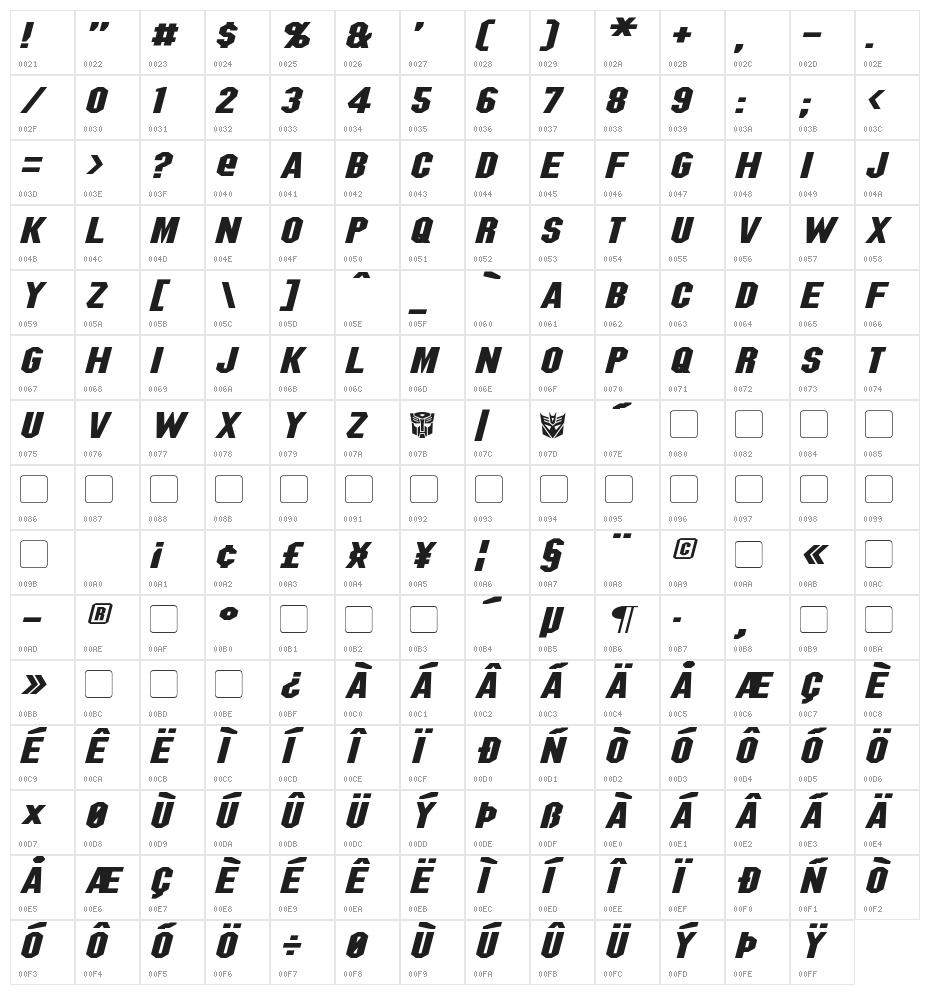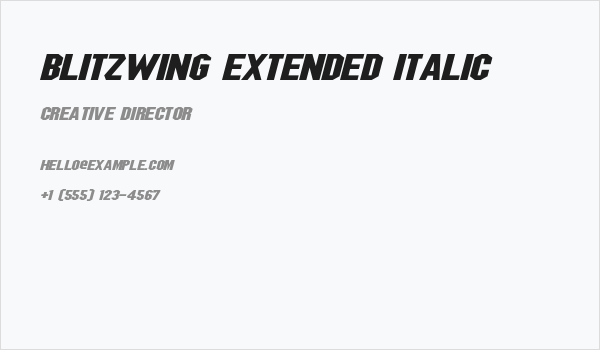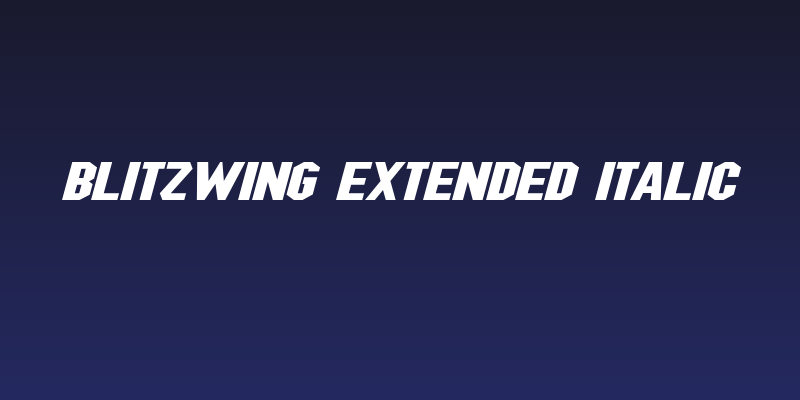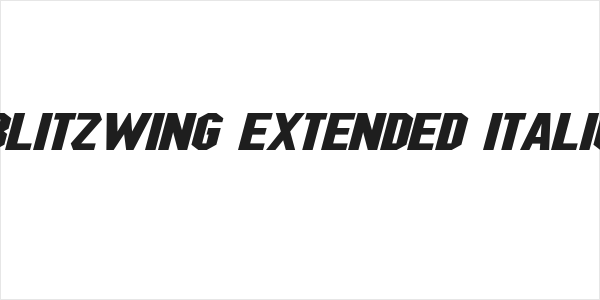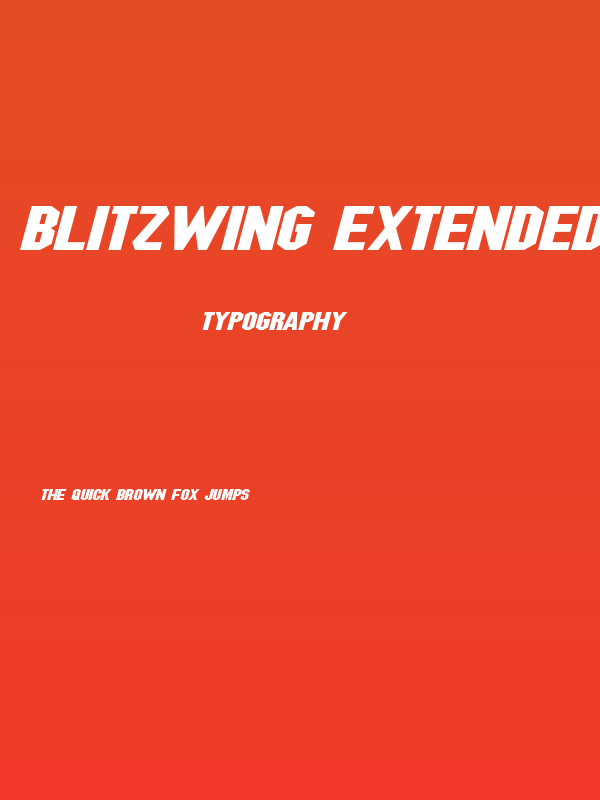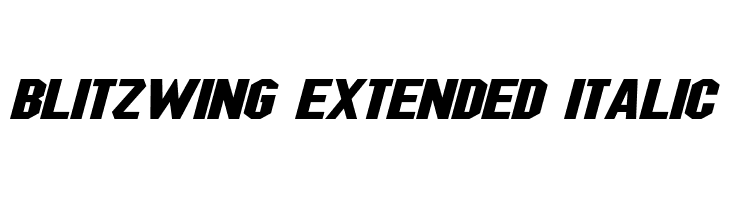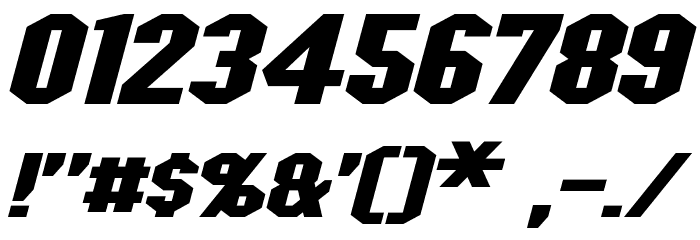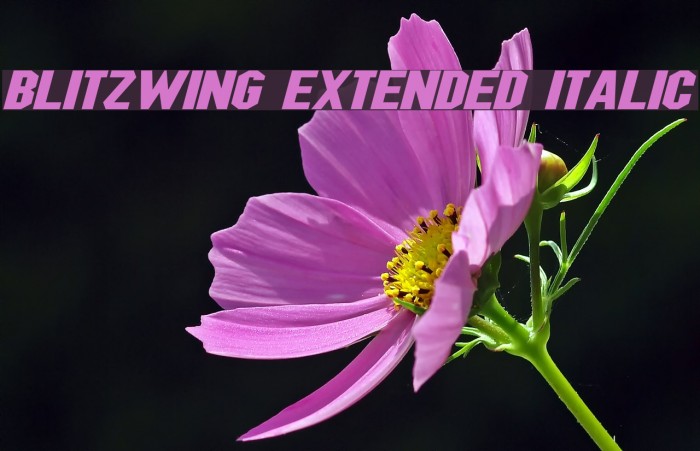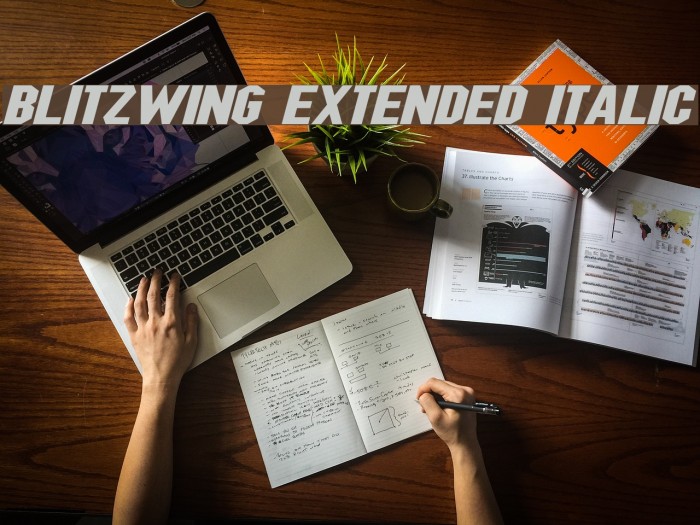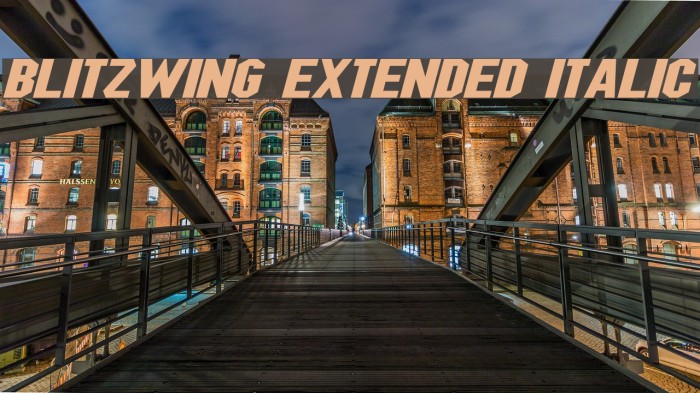
Blitzwing Extended Italic Font
Blitzwing Extended Italic Description
This font features a bold, italicized style with a distinctly modern and dynamic appearance. The characters are extended, giving them a wide stance that conveys strength and impact. The angular cuts and sharp edges add a sense of speed and motion, making it ideal for projects that require a sense of urgency or excitement. The uppercase and lowercase letters maintain a consistent design, ensuring readability while still providing a unique flair. The numbers and special characters are equally bold and stylized, fitting seamlessly with the overall aesthetic.
| Proposed Projects | Ideal for sports branding, action movie posters, dynamic web design, and any project needing a bold, impactful typeface. |